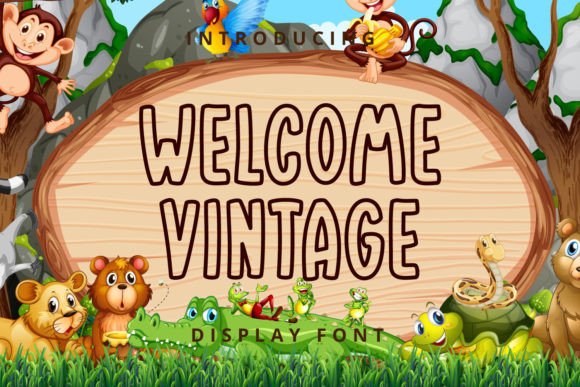
Journey back in time with Welcome Vintage Font, a display font that captures the essence of nostalgia. Let your words dance with an era of charm and elegance. This font is not just a collection of letters; it's a gateway to a bygone era, where every letter tells a story. From captivating titles to remarkable designs, Welcome Vintage Font adds a touch of magic to your creations.
Welcome Vintage Font is your creative companion, ready to bring life to your projects. Its dramatic emphasis commands attention, making it the perfect choice for headlines, logos, posters, and more. Whether you're a seasoned designer or just starting, this font will effortlessly elevate your work.
With Welcome Vintage Font, you'll discover endless possibilities. Its unique vintage style adds depth and character to your designs, making them stand out from the crowd. It's a font that captivates, engages, and inspires.
Join the creative revolution and embrace the beauty of the past with Welcome Vintage Font. Let your imagination soar as you explore new design horizons. It's more than just a font; it's an experience that will transform your creative journey.